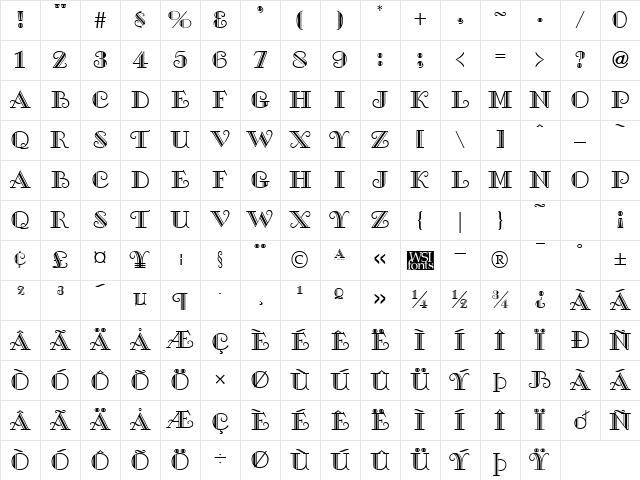
Gallery Regular Free Font
Gallery Regular
Gallery Family
Gallery Regular
Design Context for Gallery
Gallery is a composed and adaptable typeface that performs quietly and consistently across a wide range of design contexts.